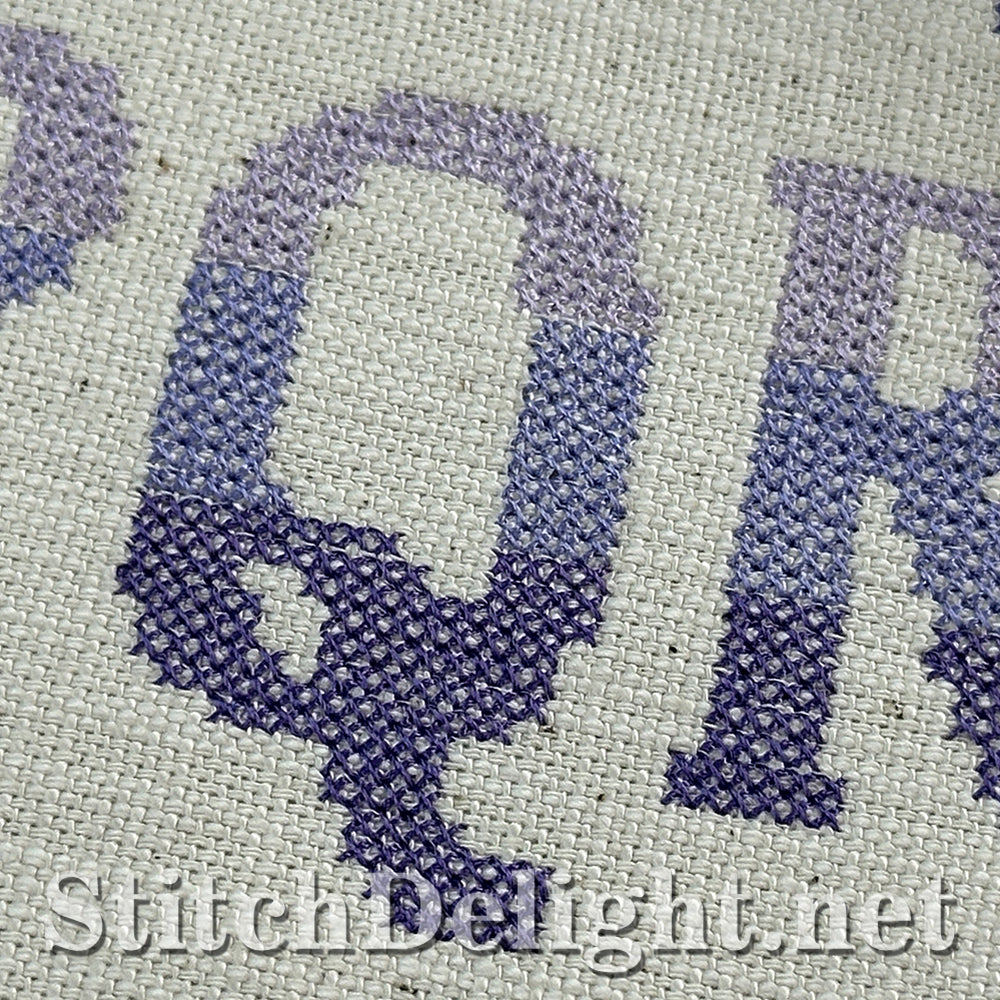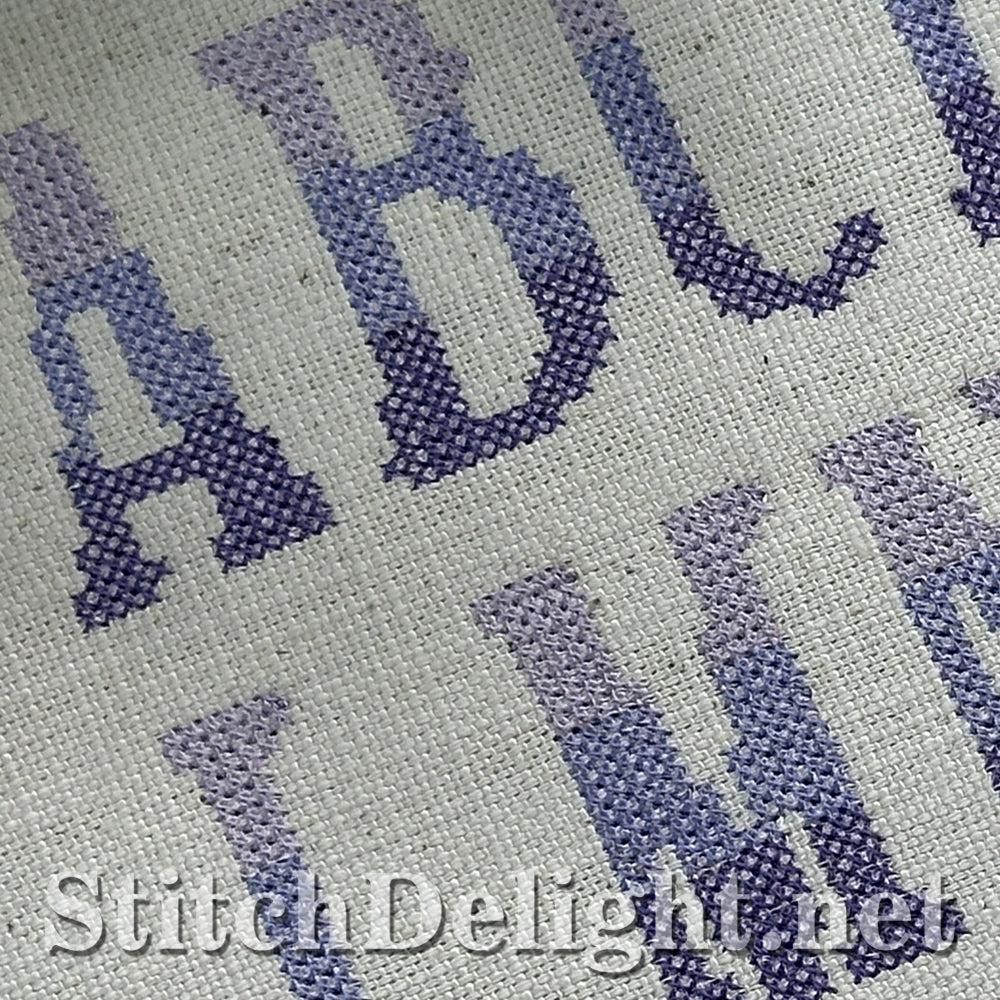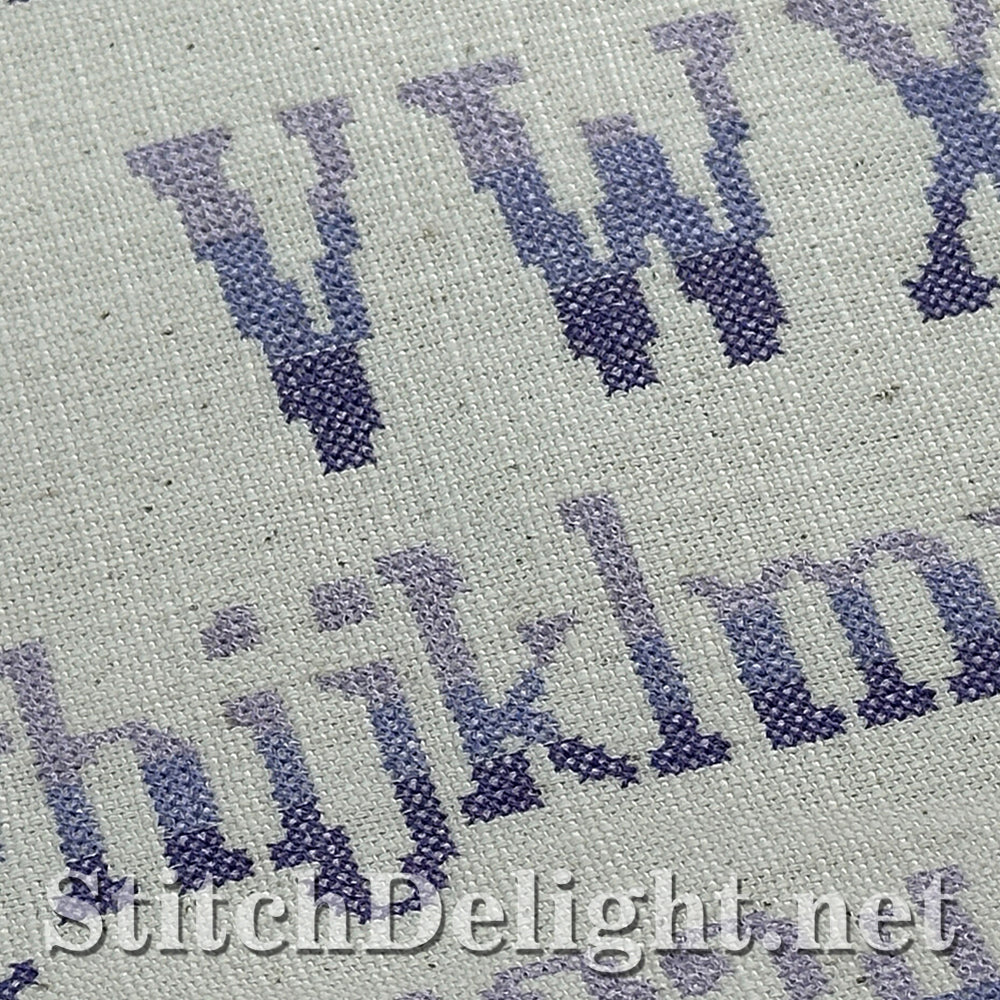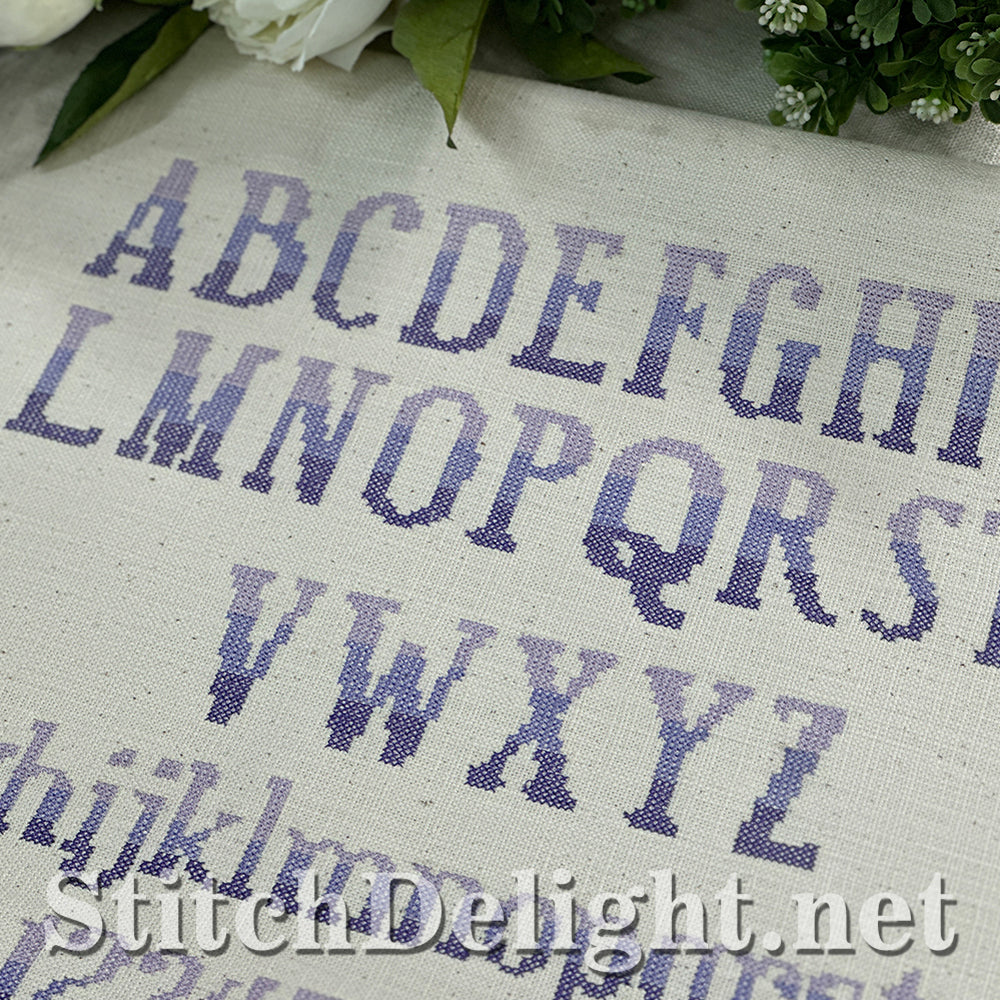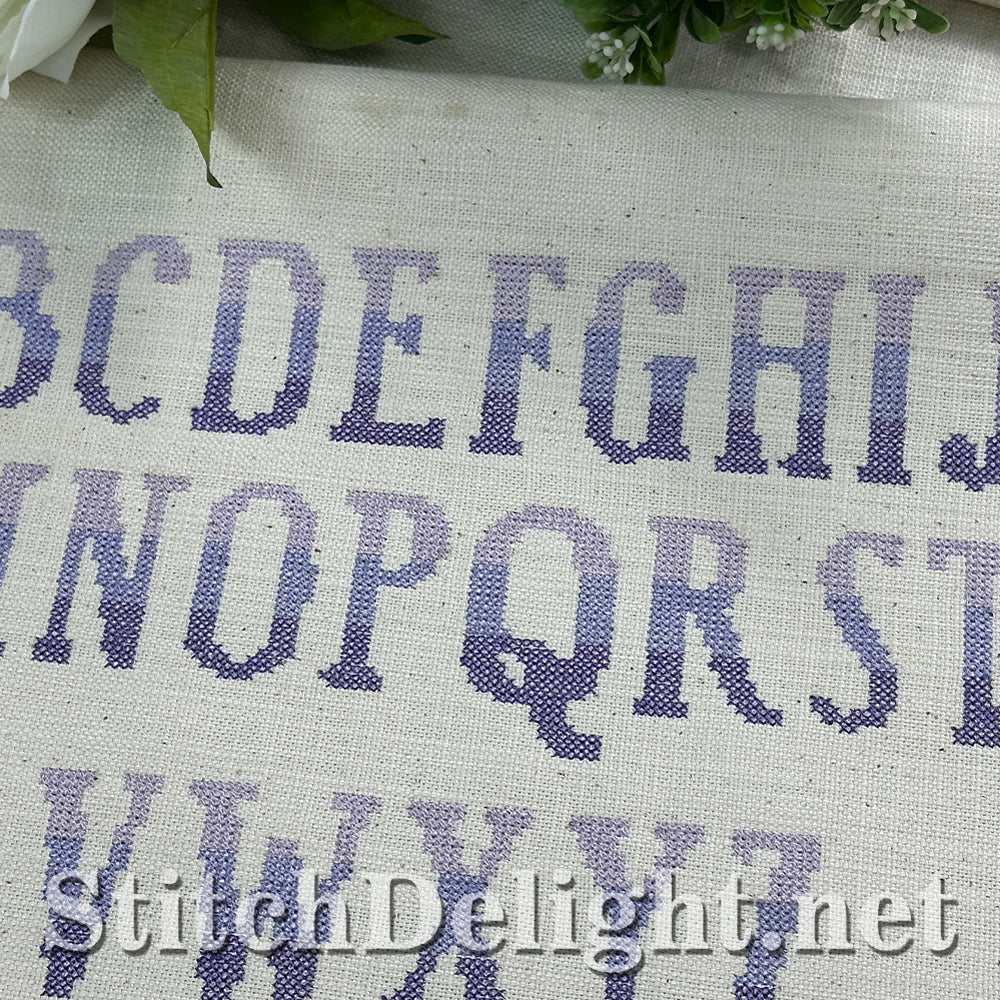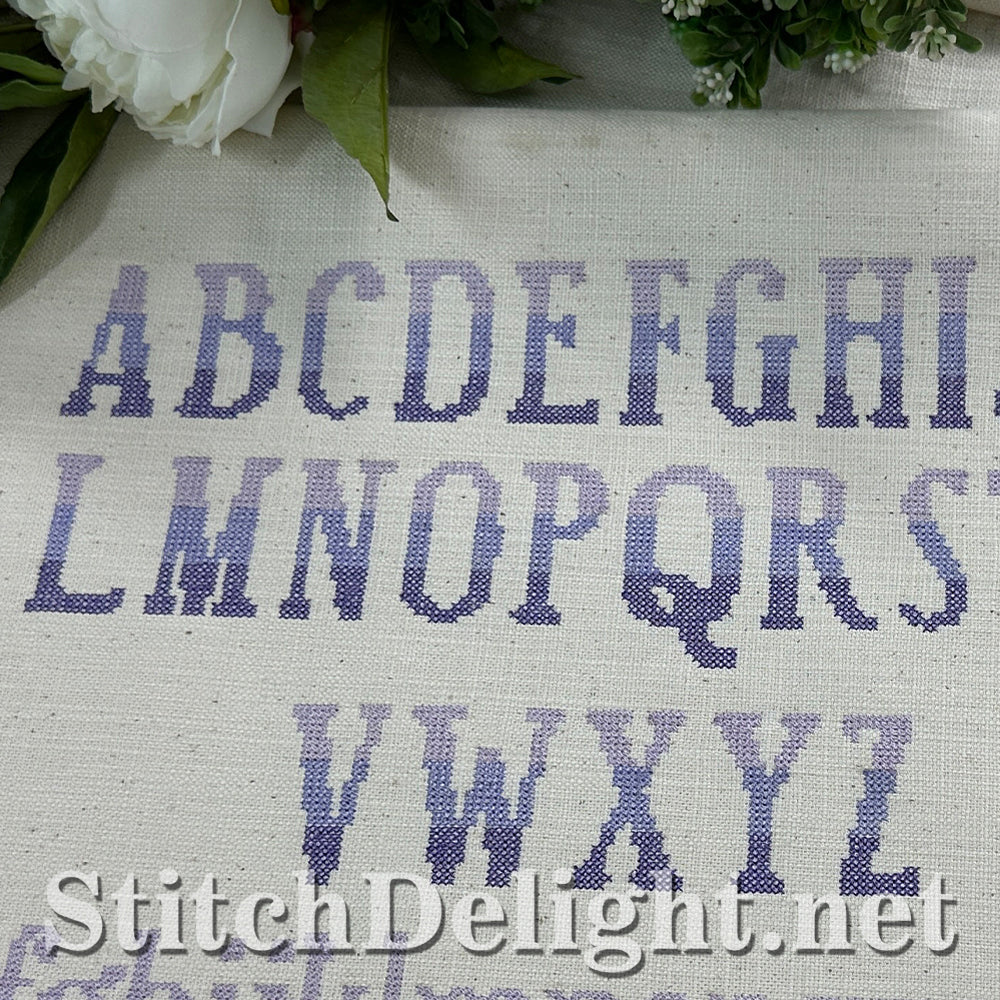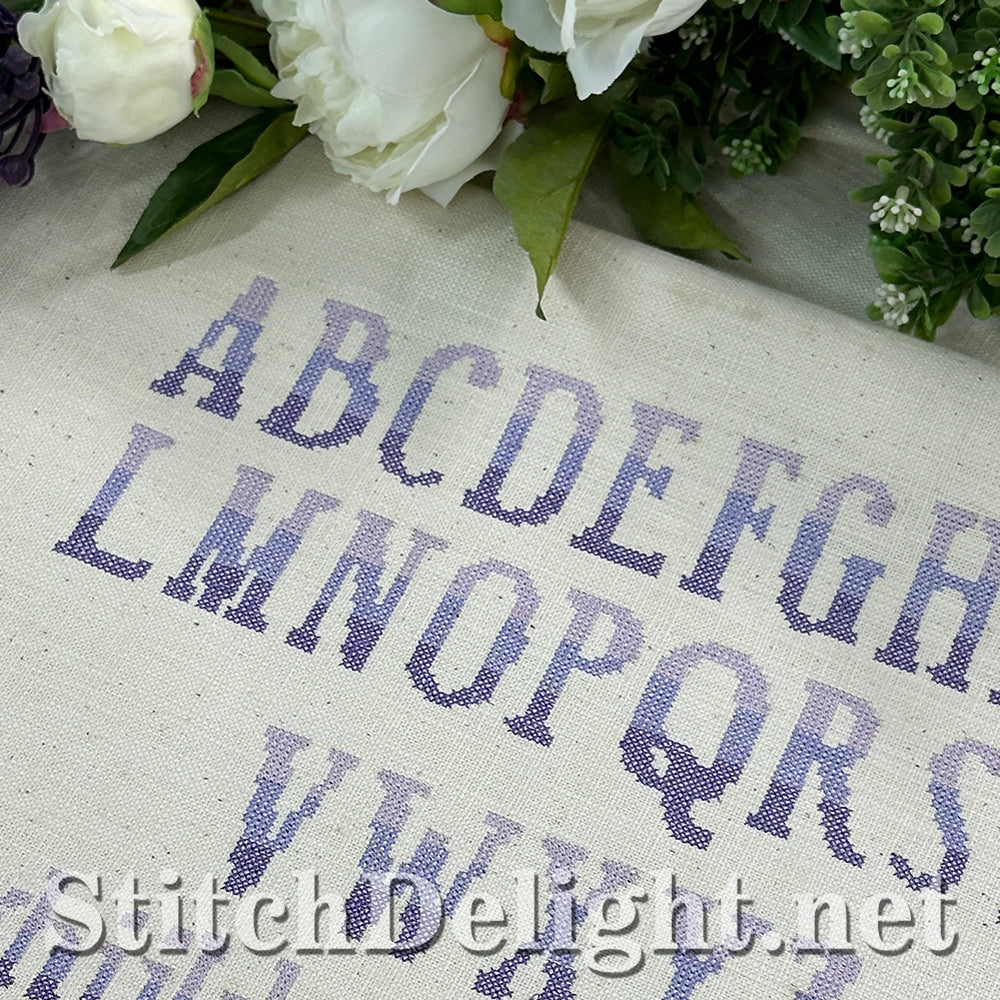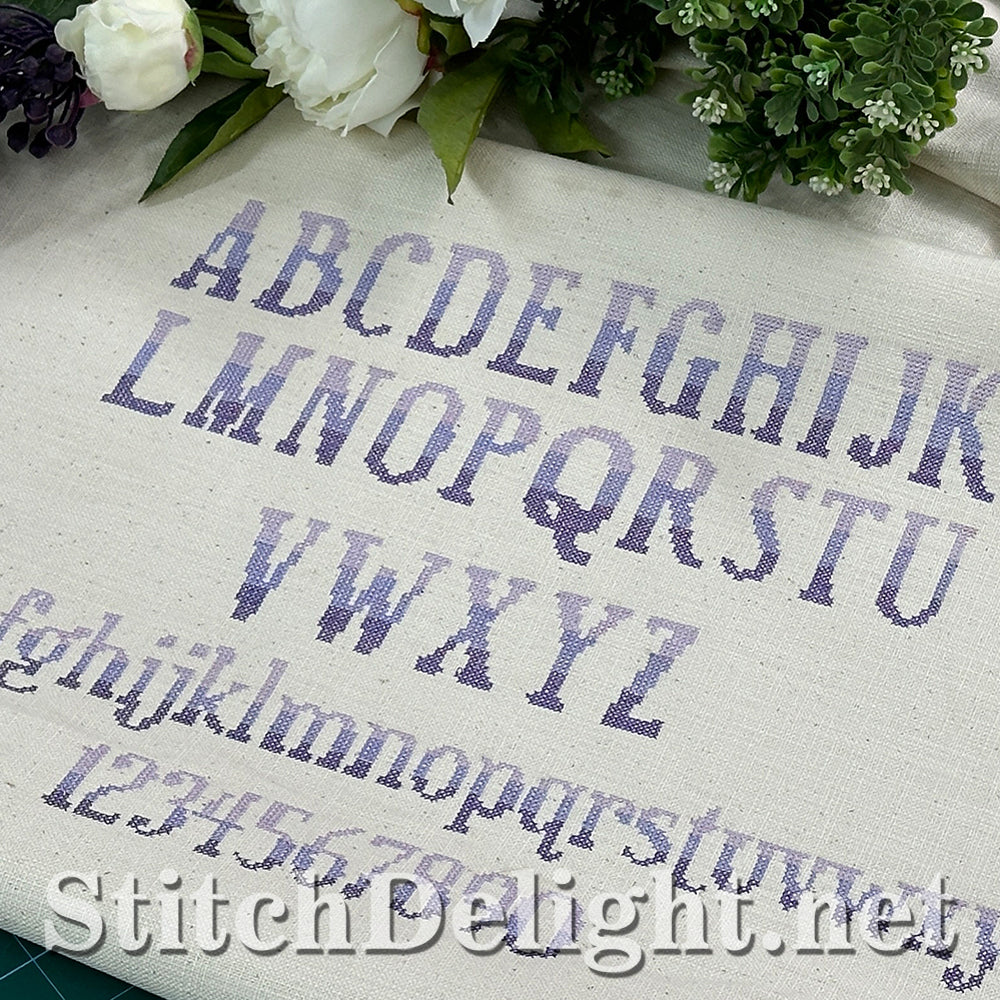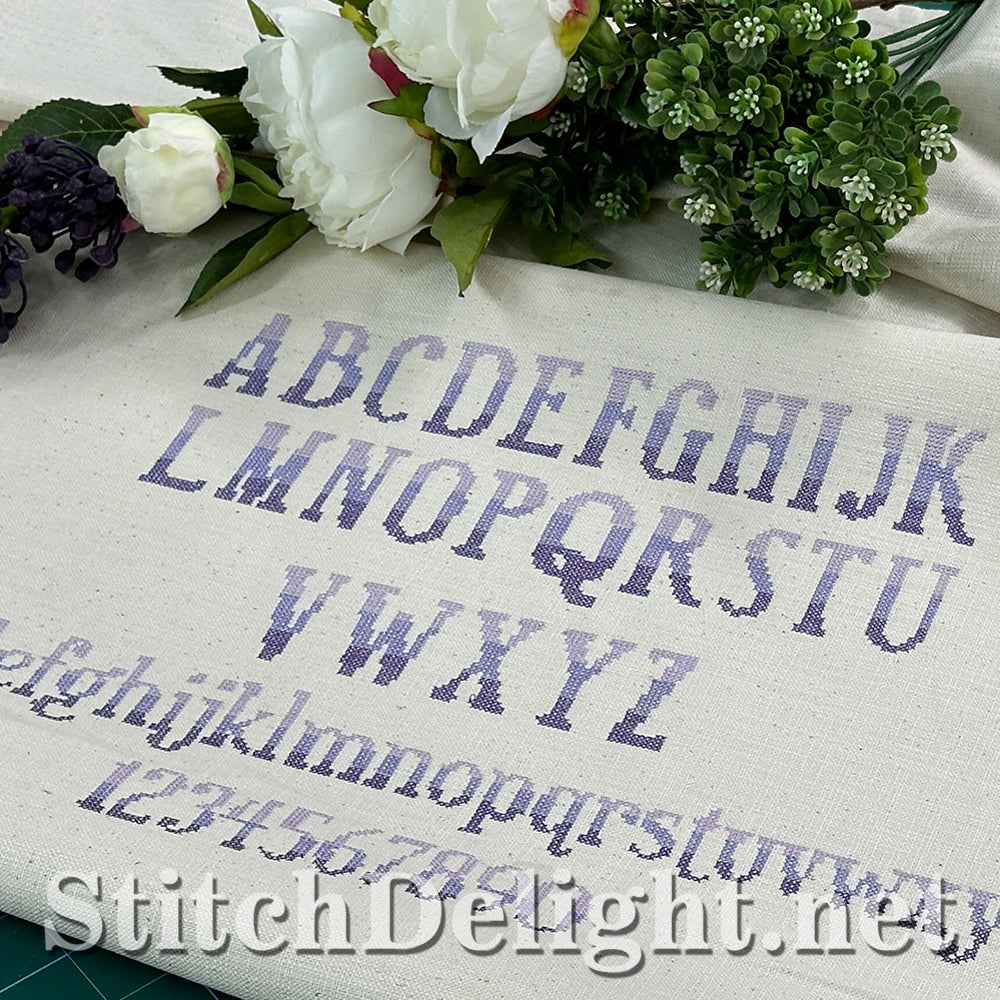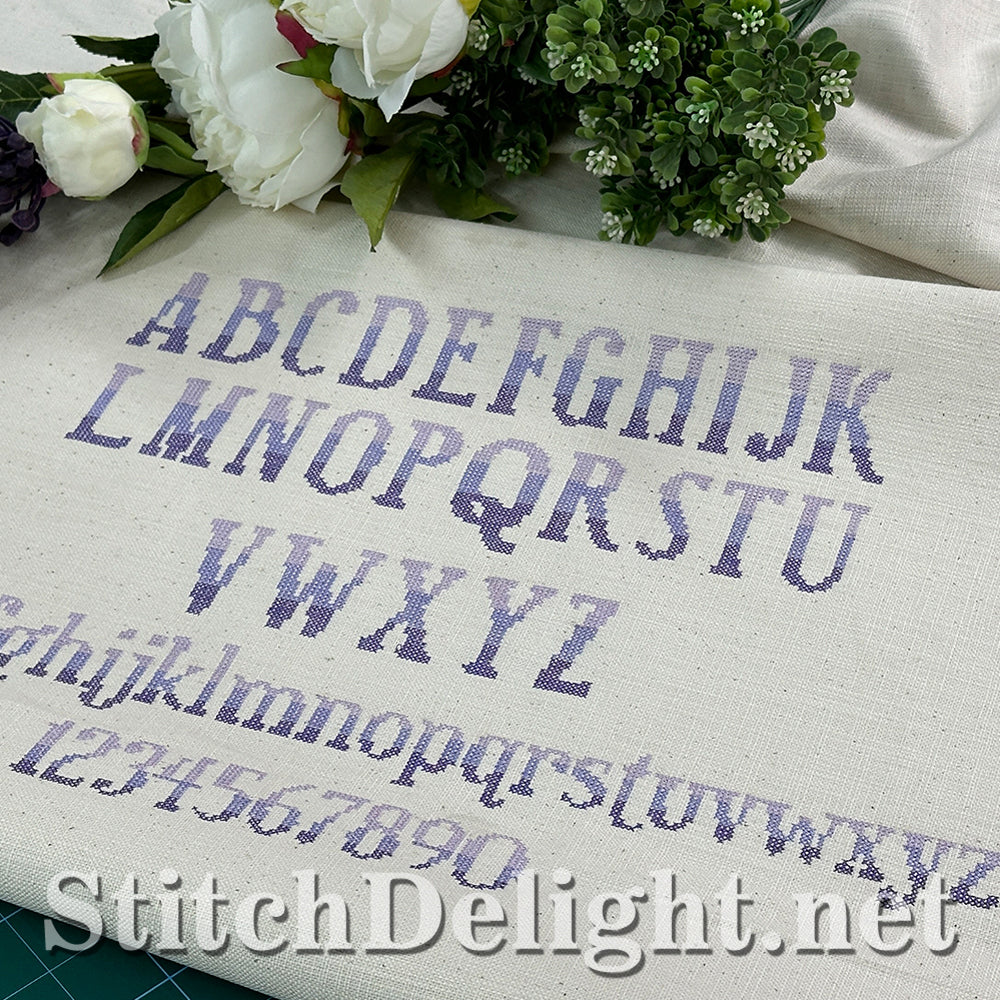
This gorgeous Ombre style cross stitch font, has a very low stitch count. Each letter stands around 1.3inch high and was digitized to go perfectly well with the Rose Cross stitch font you can find here.